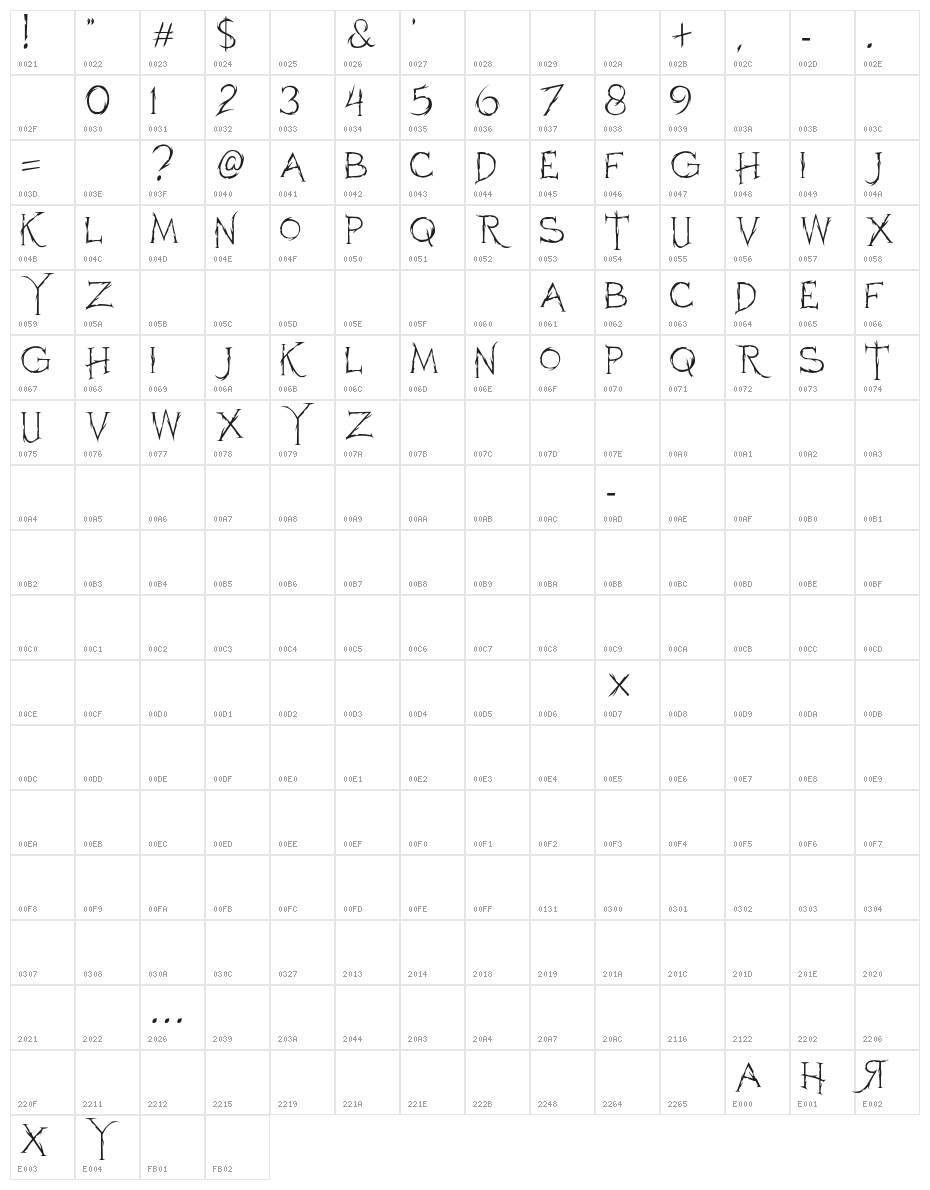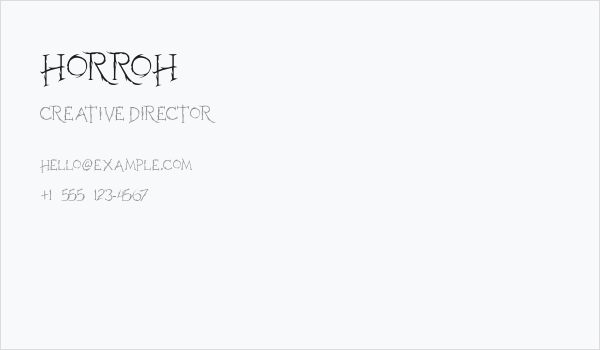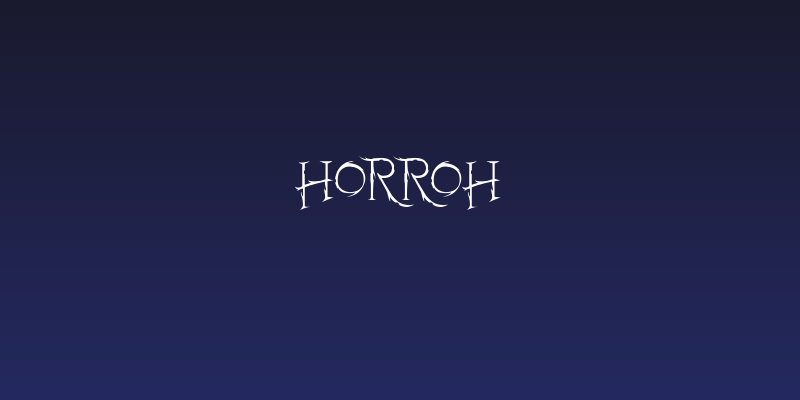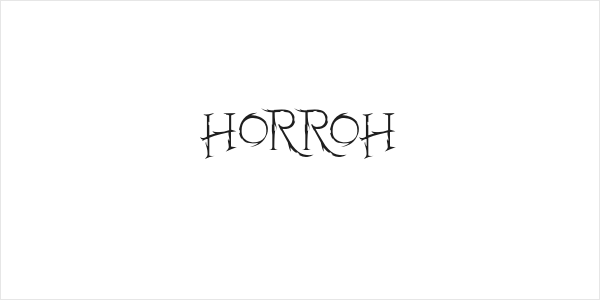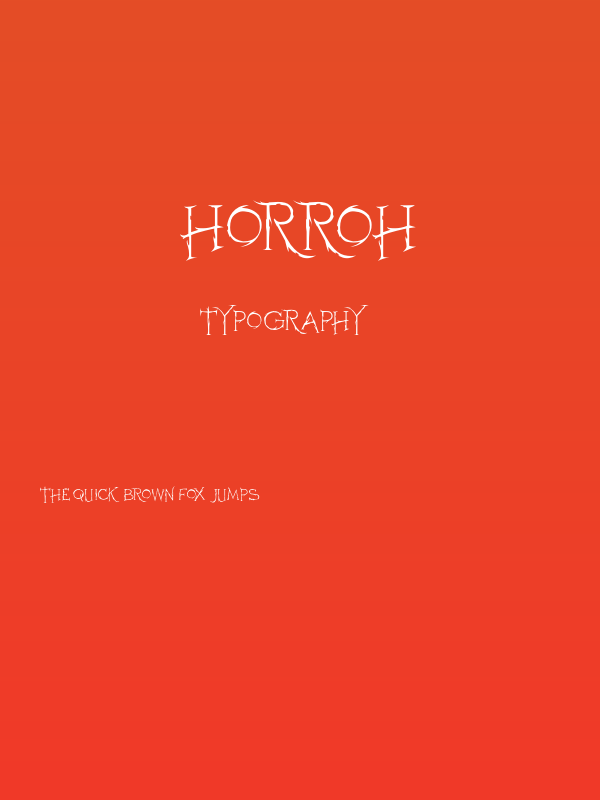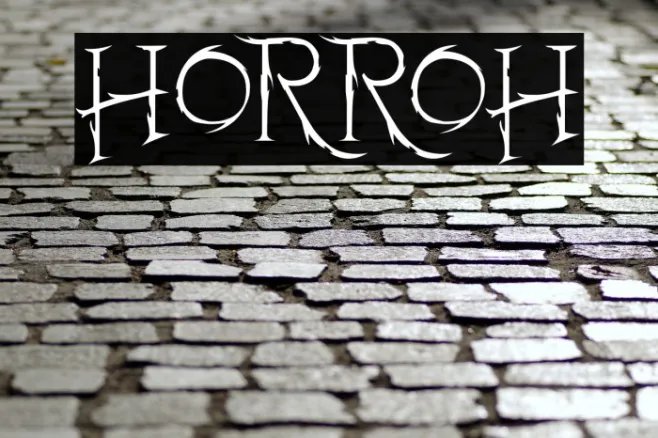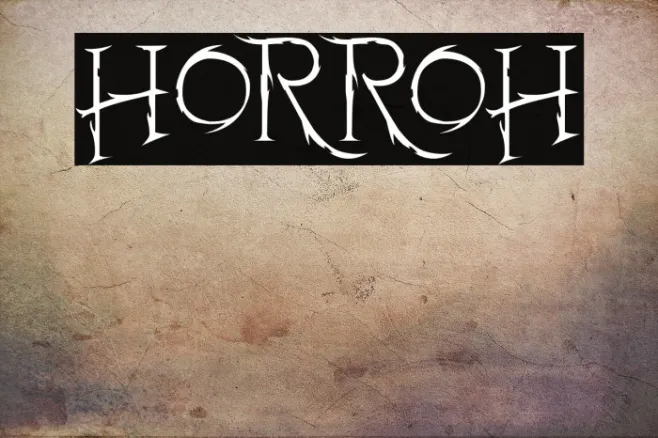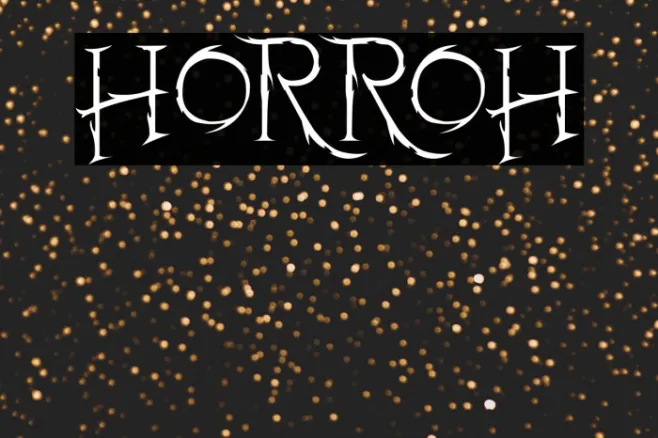
Horroh Font
Horroh Description
This font features a dramatic and edgy design, characterized by sharp, jagged edges and a slightly irregular form that evokes a sense of horror or suspense. The uppercase and lowercase letters maintain a consistent style, with elongated strokes and pointed serifs that give the typeface a thorny appearance. The numbers and special characters follow the same aesthetic, ensuring a cohesive look across all text elements. This font is ideal for creating a chilling atmosphere, making it perfect for horror-themed projects or any design that requires a touch of the macabre.
| Proposed Projects | Ideal for horror movie posters, Halloween event flyers, spooky book covers, and themed merchandise. |